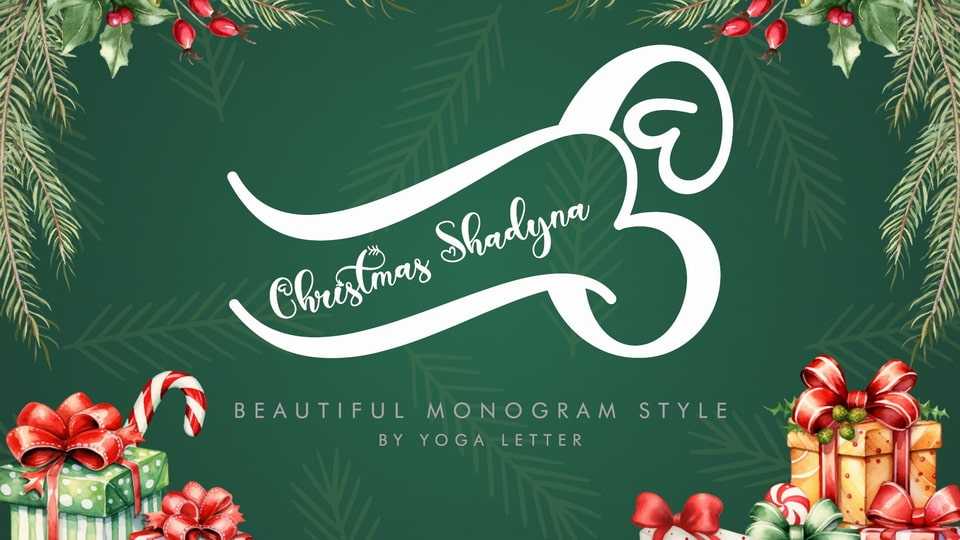
Download The Christmas Shadyna font, a festive and elegant decorative typeface designed for creating unique monogram compositions with a holiday touch.